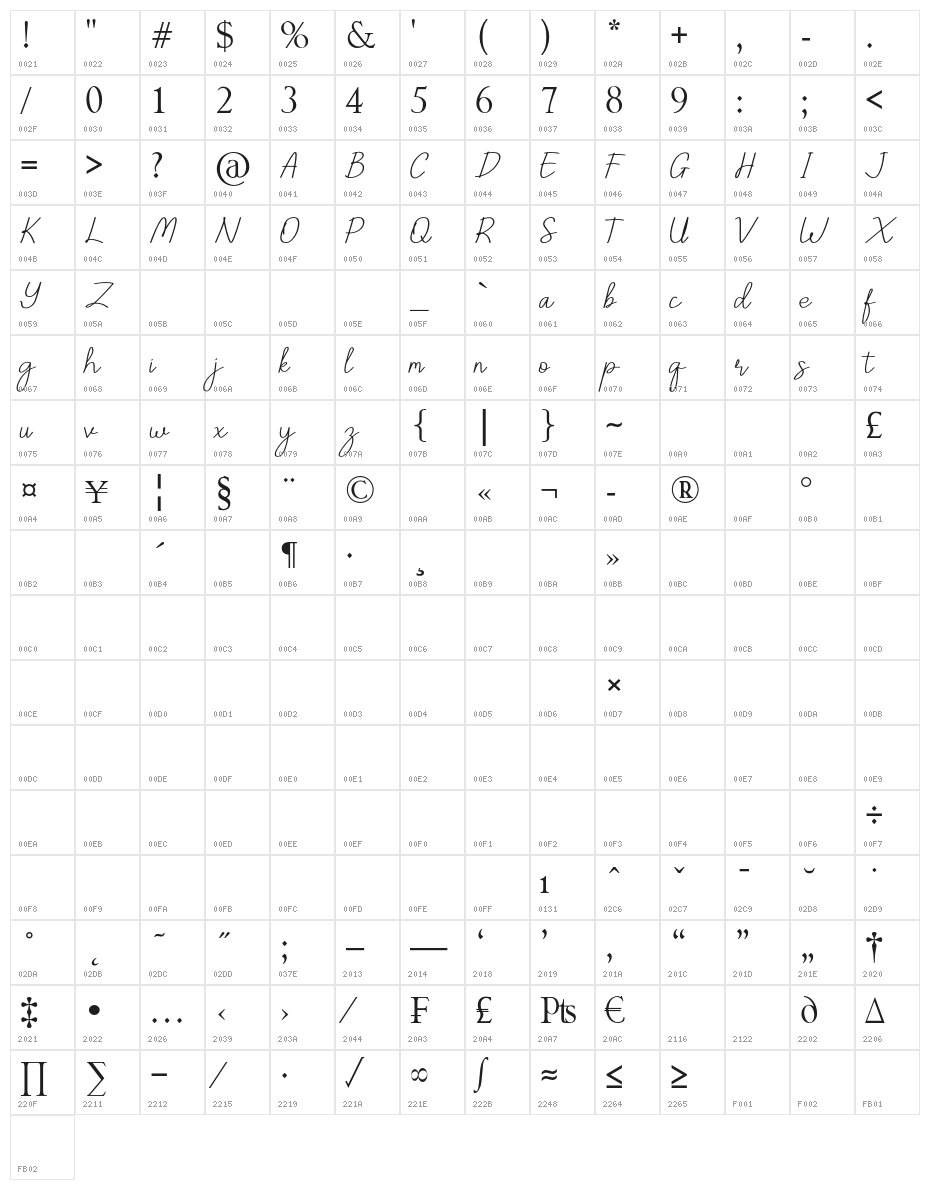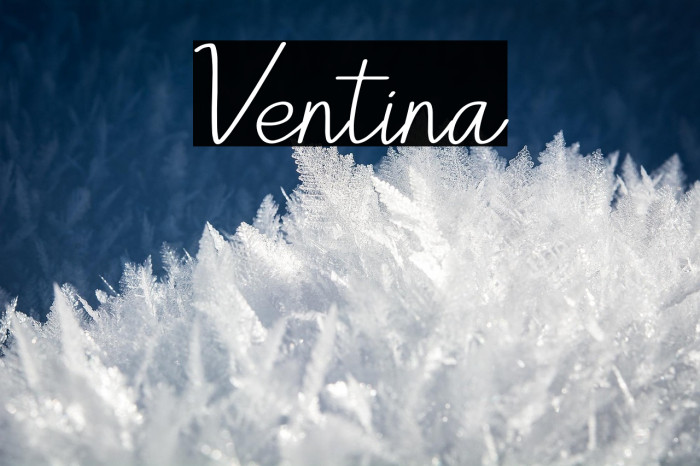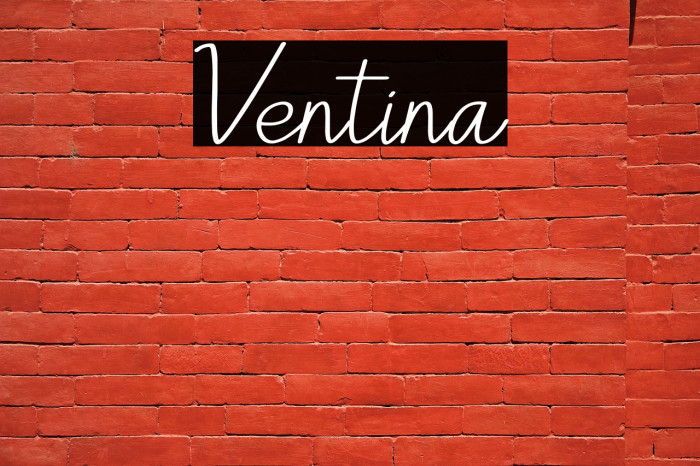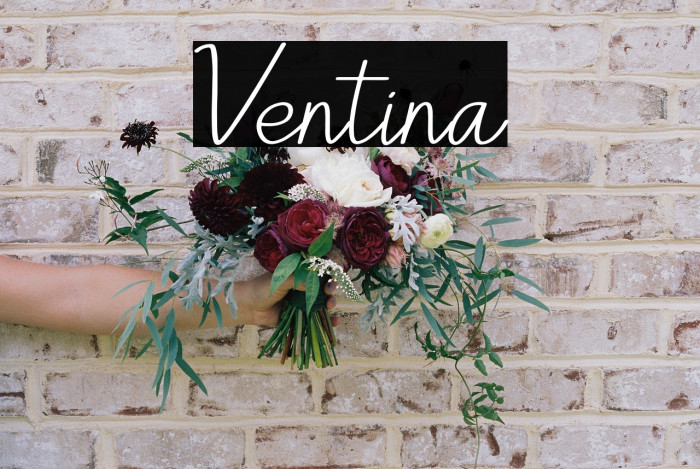
Ventina Font
| Stile generale | Elegant and sophisticated |
| Caso d'uso | Logos, Invitations, Decorative text |
| Progetti proposti | Ideal for wedding invitations, greeting cards, branding, and logo design. |